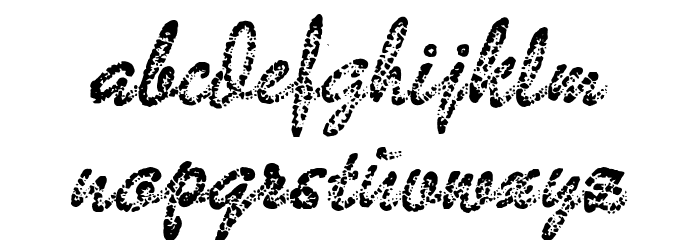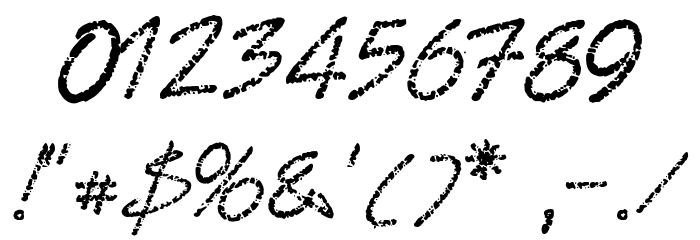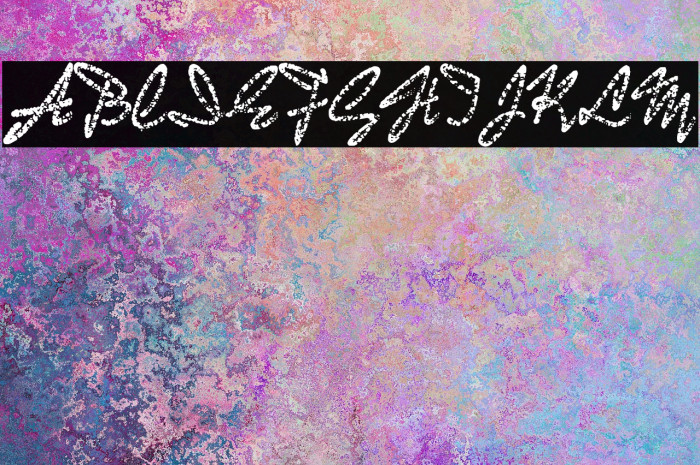
BadGong Font
This font features a dynamic and energetic script style, characterized by its bold and expressive strokes. The letters are interconnected, giving it a fluid and continuous appearance, reminiscent of handwriting with a brush or marker. The texture is unique, with a distressed, speckled pattern that adds a sense of movement and vibrancy. This font stands out with its artistic flair, making it ideal for creative and eye-catching designs. The uppercase and lowercase letters maintain a consistent style, while the numerals and special characters complement the overall aesthetic with similar detailing.
A bold, textured script font with a dynamic, handwritten style.
- Font: BadGong
- Proposed Projects: Ideal for branding, posters, invitations, and any project requiring a bold, artistic touch.